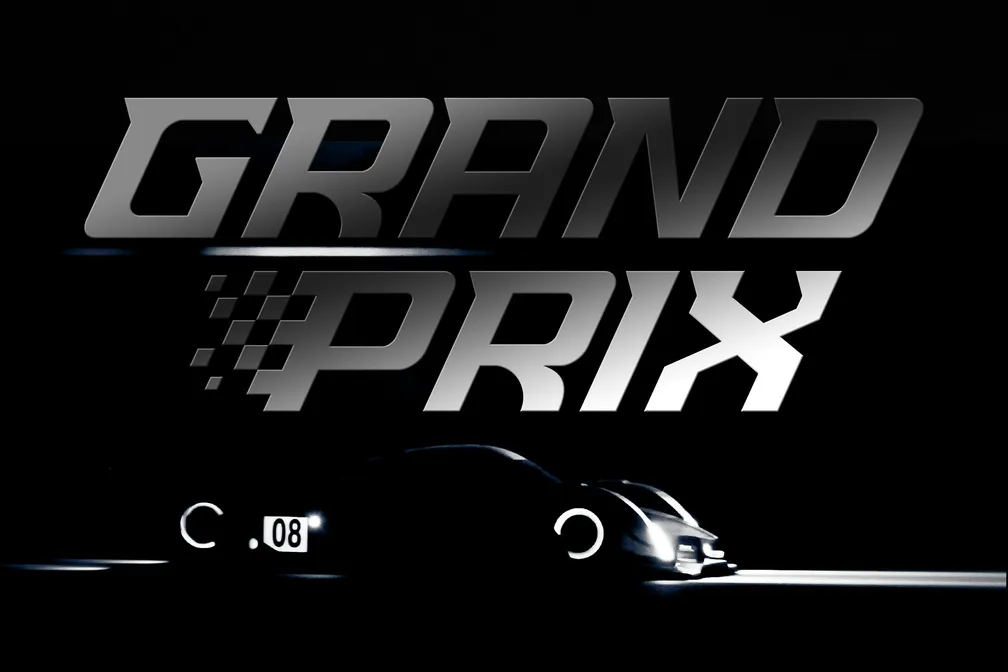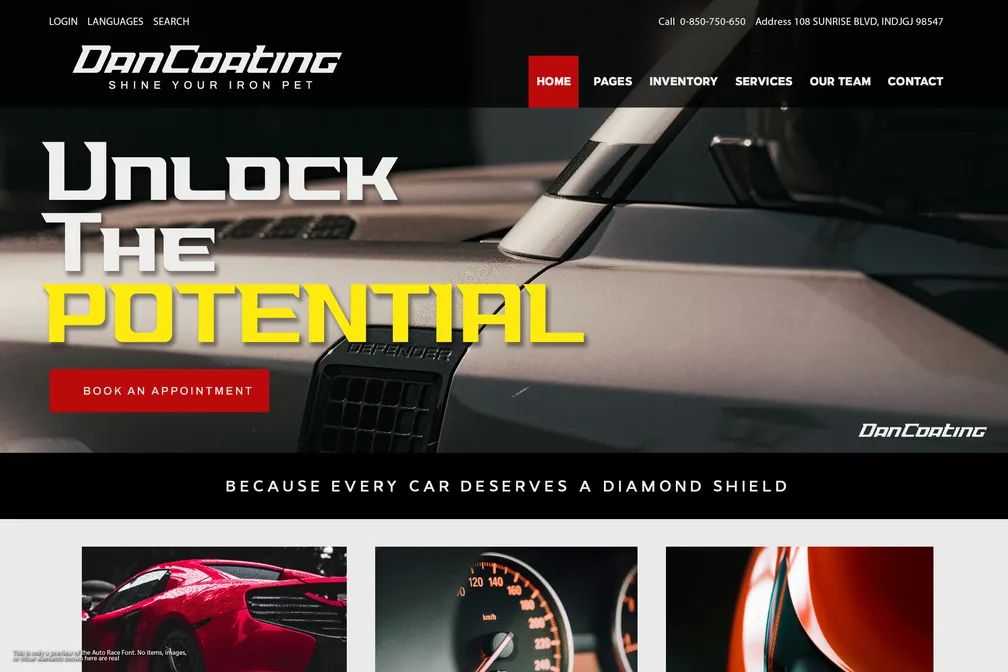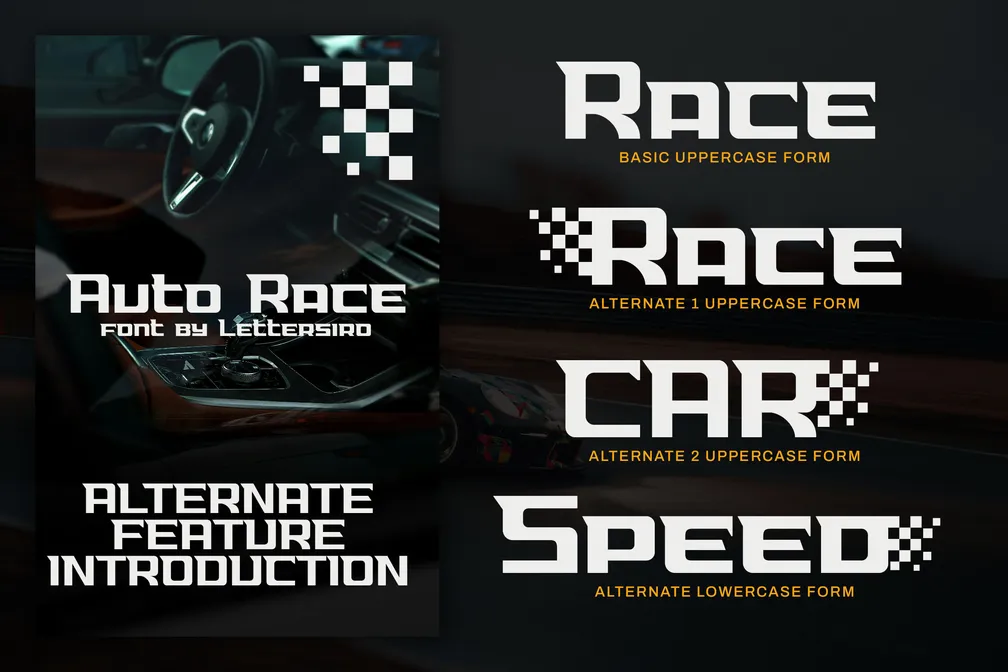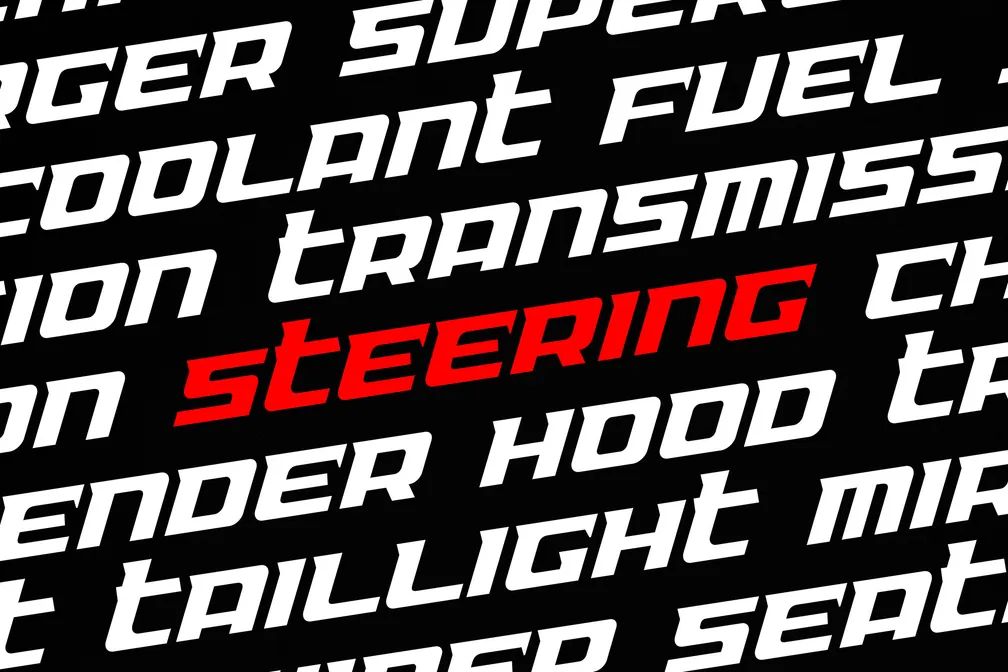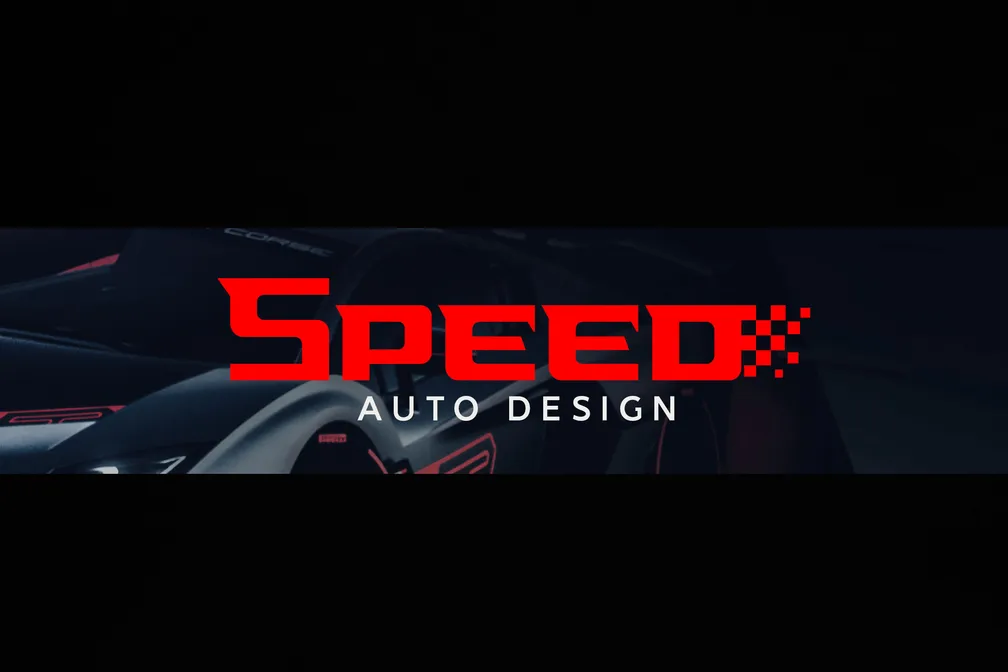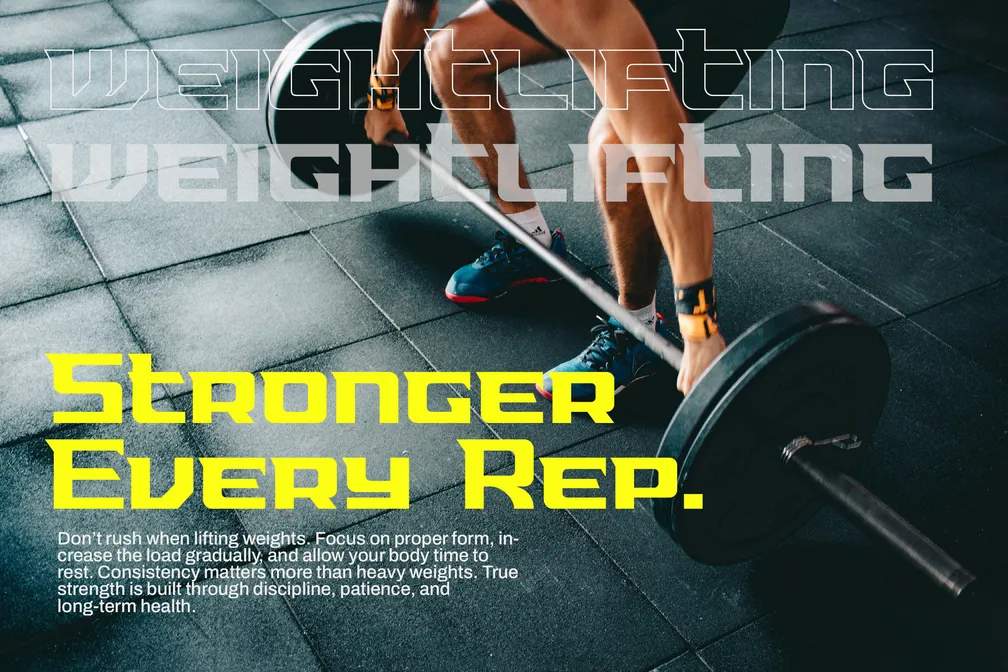
Auto Race
Auto Race is a bold and modern sporty font designed for speed, energy, and powerful branding. With its sharp angles and aerodynamic style, this font is perfect for creating striking logos, posters, and sports-themed visuals. It comes with 4 different stylesRegular, Italic, Rounded, and Outline – giving you flexibility for various design projects.
Packed with plenty of alternates, Auto Race helps you craft unique sporty wordmarks with ease. Whether for broadcast graphics, automotive websites, team jerseys, posters, or TV commercials, this font delivers a fast-paced and professional look.
• Sporty Logotype Style – Bold dynamic letterforms inspired by speed and racing
• 4 Font Styles – Regular, Italic, Rounded, and Outline included
• Alternates & Variations – Creative stylistic alternates for unique designs
• Complete Character Set – Includes uppercase, lowercase, numbers, punctuation, and symbols
• Multilingual Support – Supports multiple Western European languages
• Logo Design – Create powerful, eye-catching sporty wordmarks
• Broadcast & TV Commercials – Dynamic titles for sports shows and racing promos
• Automotive Websites – Perfect for motorsport blogs and automotive branding
• Team Jerseys & Sports Branding – Strong lettering for names, numbers, and sponsors
• Posters & Event Promotions – Bold typography for competitions and racing events